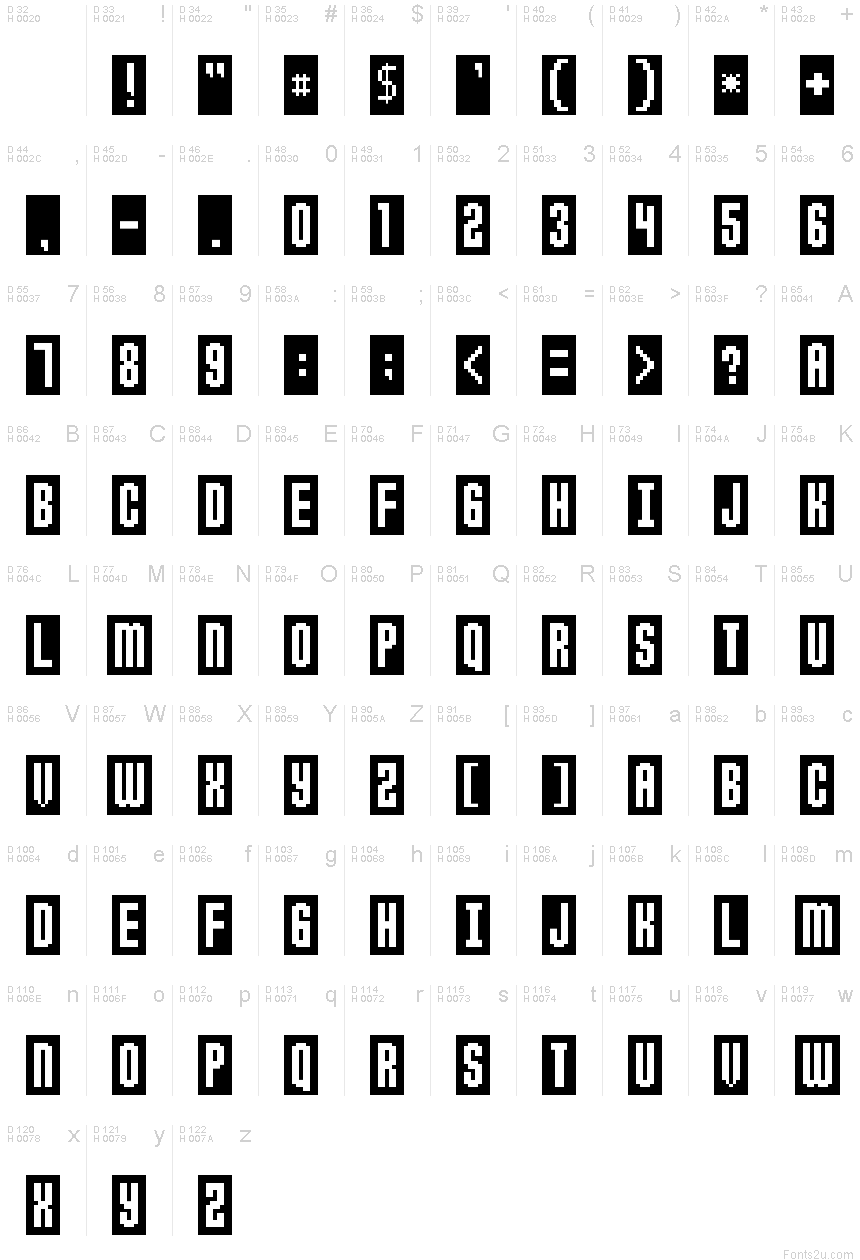
Anticlimax
Anticlimax font by Jakob Fischer of PizzaDude is a free pixel bitmap typeface with tall, wired-looking letters that feel straight out of a glitchy arcade screen. The narrow shapes stack into tight columns, giving every word a tense, compressed energy, while the crisp, blocky edges keep it brutally legible at small sizes. There’s a subtle unease baked into its geometry that makes even simple text feel like a warning message or countdown timer.
Using Anticlimax, you get a natural fit for retro game titles, HUD readouts, dystopian posters, techy YouTube thumbnails, synthwave album covers, and coder-themed stream overlays. This free font shines when set in all caps and oversized, with generous spacing to let the pixel grid breathe. For supporting text, pair it with a clean, neutral sans serif so Anticlimax can handle the attitude while the body copy stays out of the way.